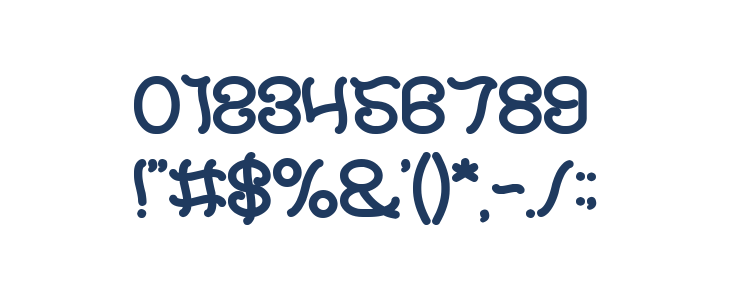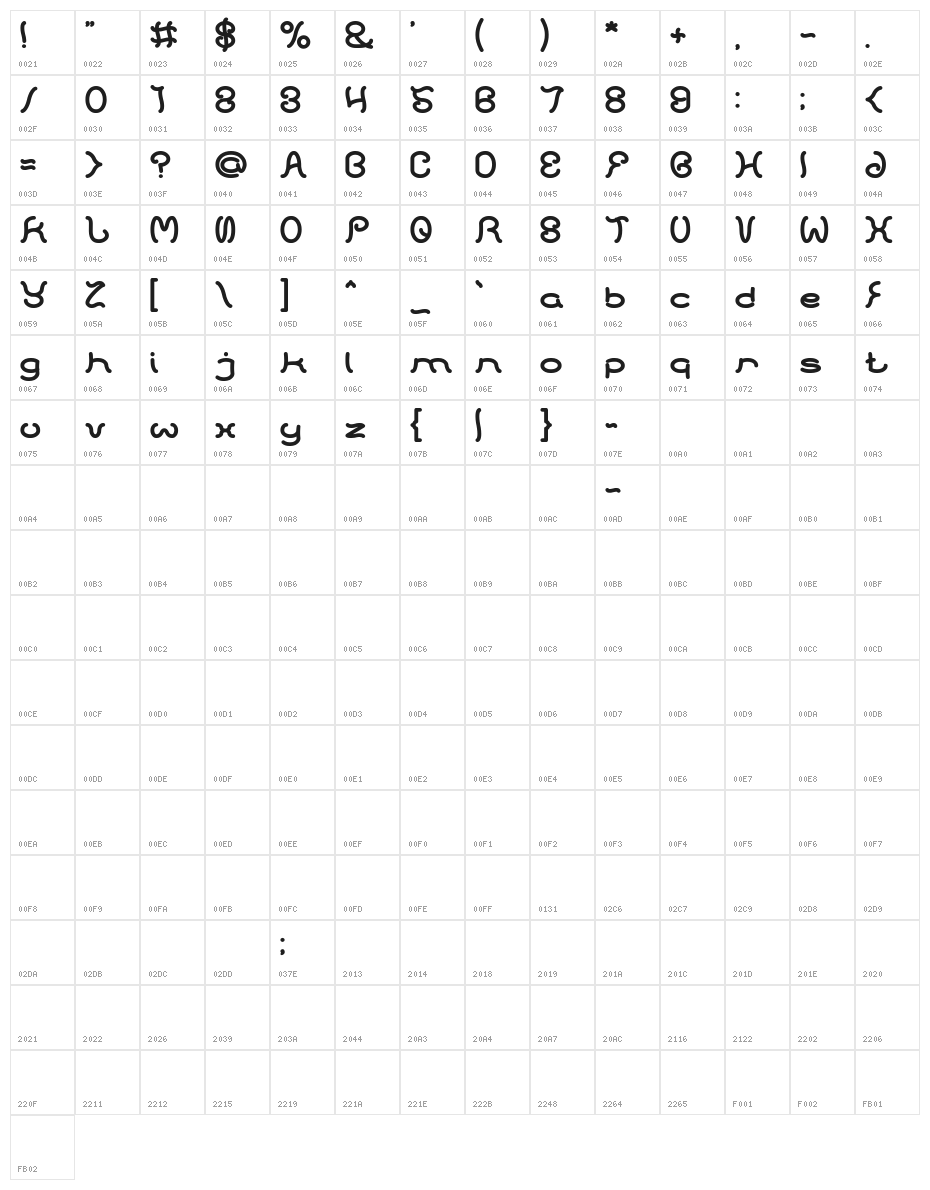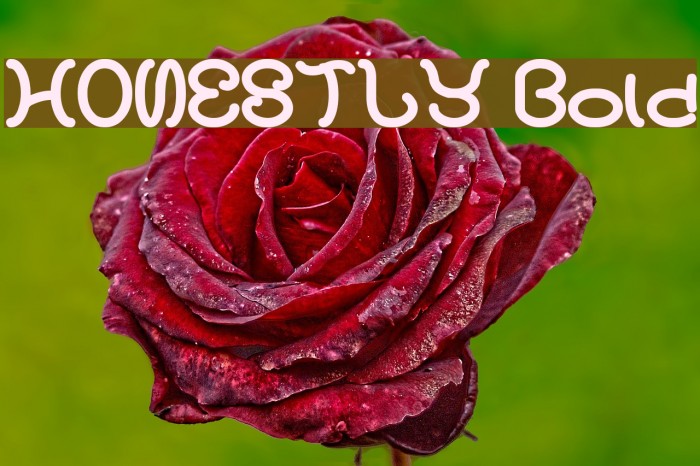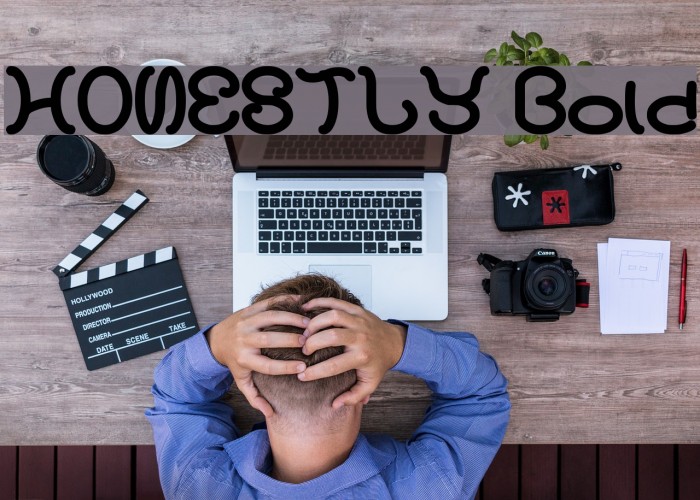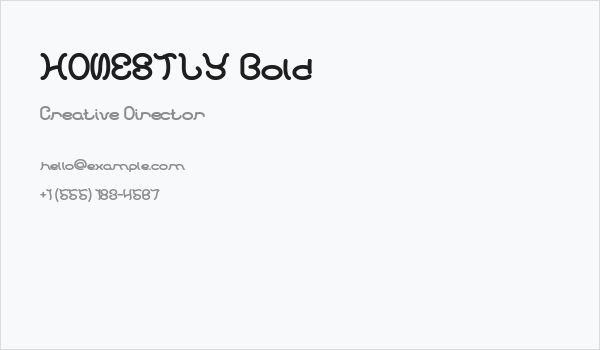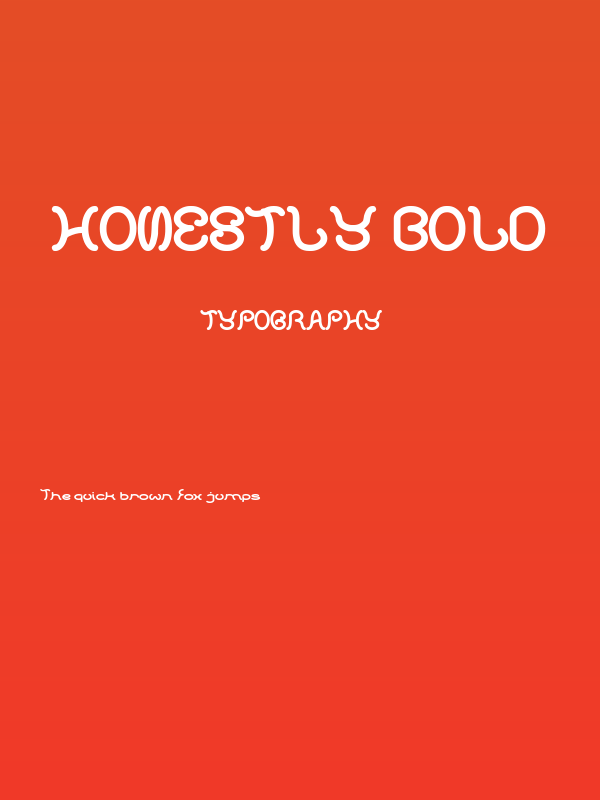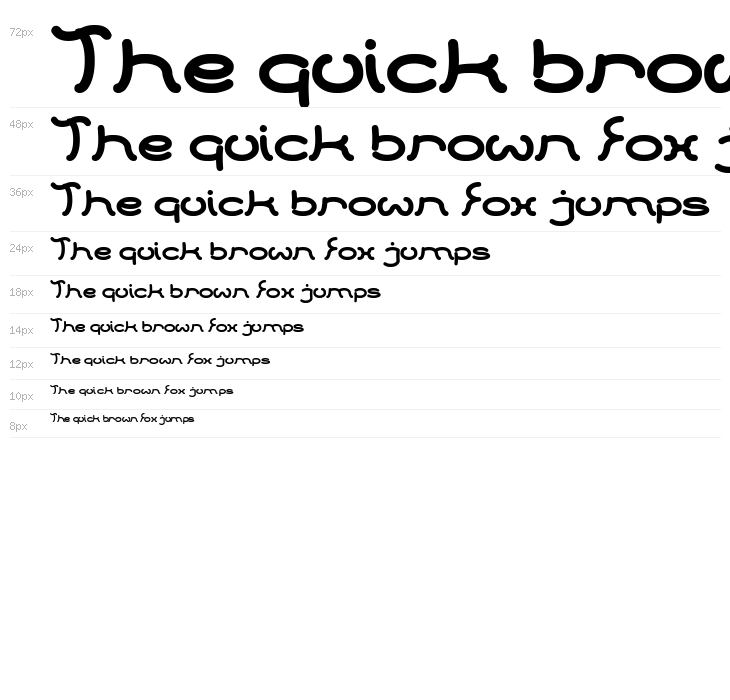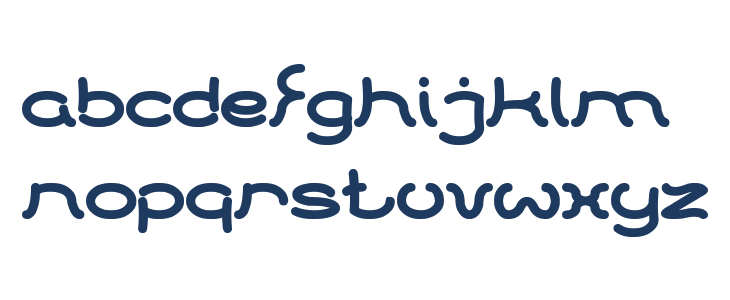
HONESTLY Bold Font
HONESTLY Bold Description
This font features a playful and bold design with a unique, wavy structure that gives it a whimsical and dynamic appearance. The characters are rounded with a consistent thickness, creating a cohesive look across both uppercase and lowercase letters. The numbers and special characters maintain this playful style, making it suitable for creative and informal applications. The font's boldness ensures high visibility, while its distinctive curves add a touch of personality and flair.
| Proposed Projects | Ideal for children's books, playful branding, event posters, and creative social media graphics. |